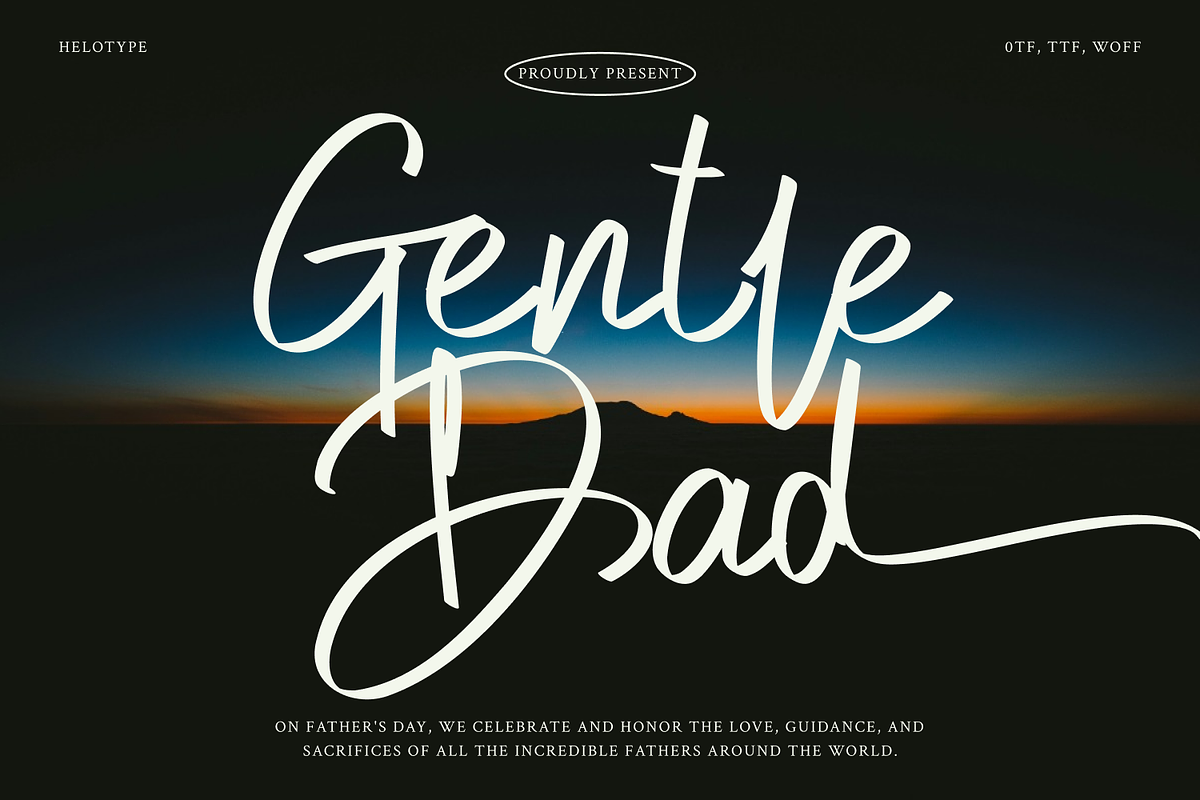
Gentle Dad Font Free Download is a soft and elegant script typeface with a friendly, handwritten style. With its smooth curves and natural flow, Gentle Dad is perfect for projects that need a warm, personal touch, such as greeting cards, wedding invitations, branding, and social media graphics.
Gentle Dad Font Free Download brings a sense of warmth and authenticity to your typography, making it ideal for heartfelt designs, personalized messages, or any project that requires a charming, informal style. Whether you're designing a family-themed logo, creating a sweet invitation, or adding a personal touch to your content, this font adds grace and style to your work. Download it today and infuse your next project with the gentle, friendly feel of Gentle Dad!